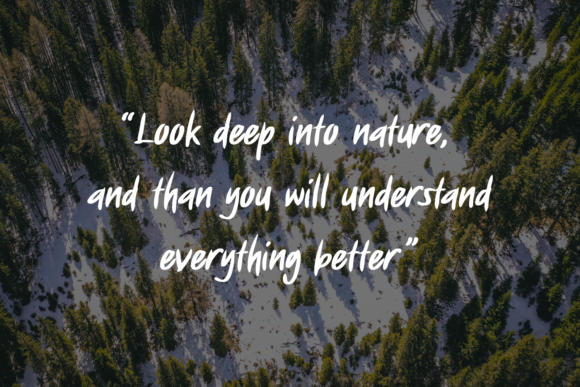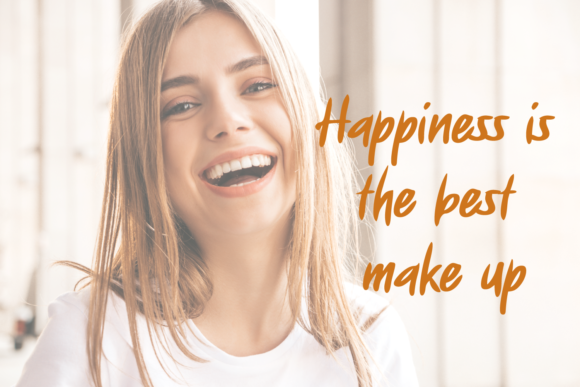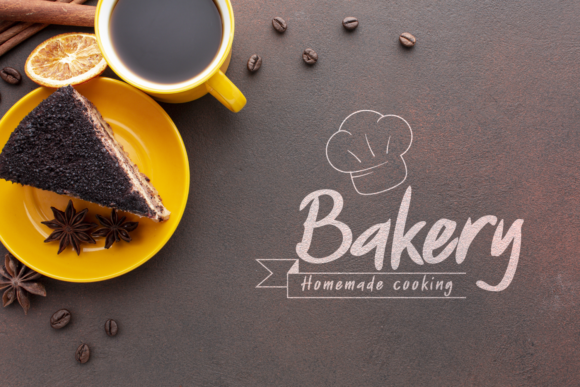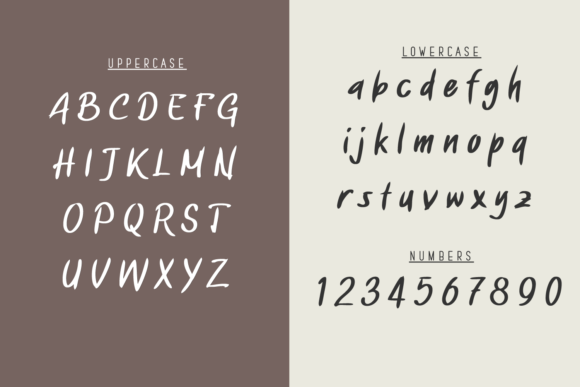
Jabirah is a dazzling, thick lettered paint brushed script font. This font is neatly crafted and highly detailed. Whatever the topic, this font will be a wonderful asset to your font library, as it has the potential to enhance any creation.